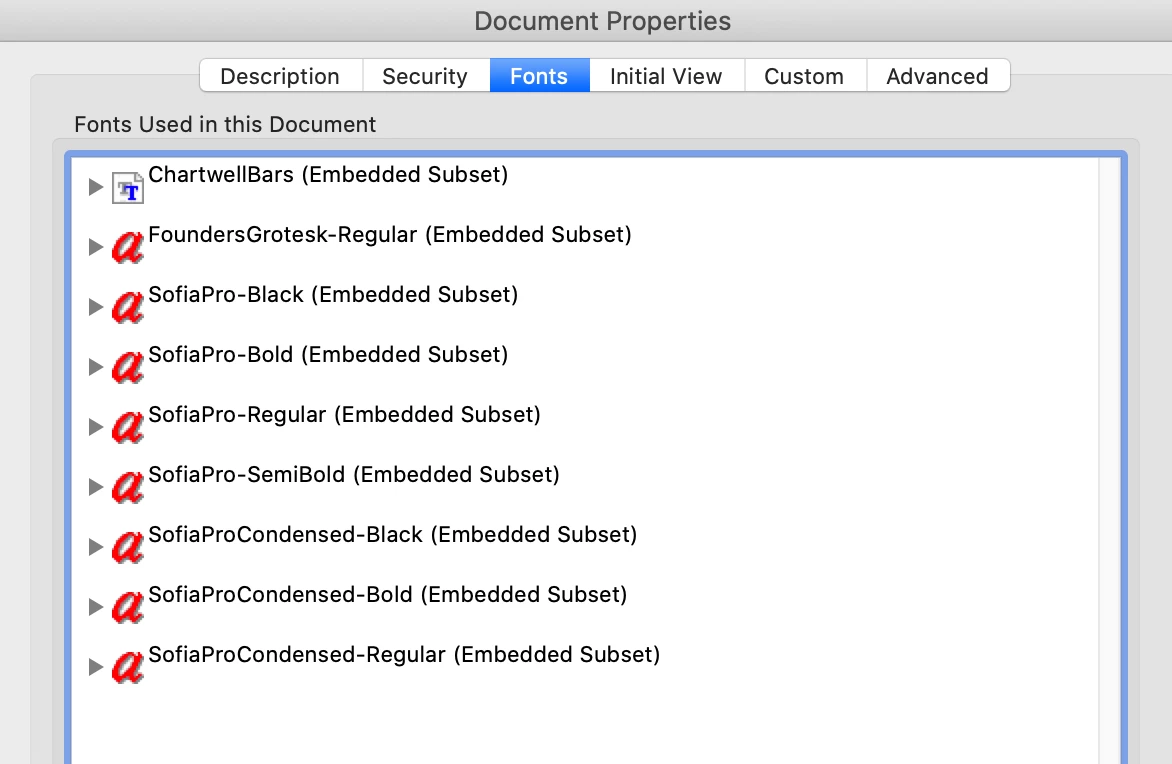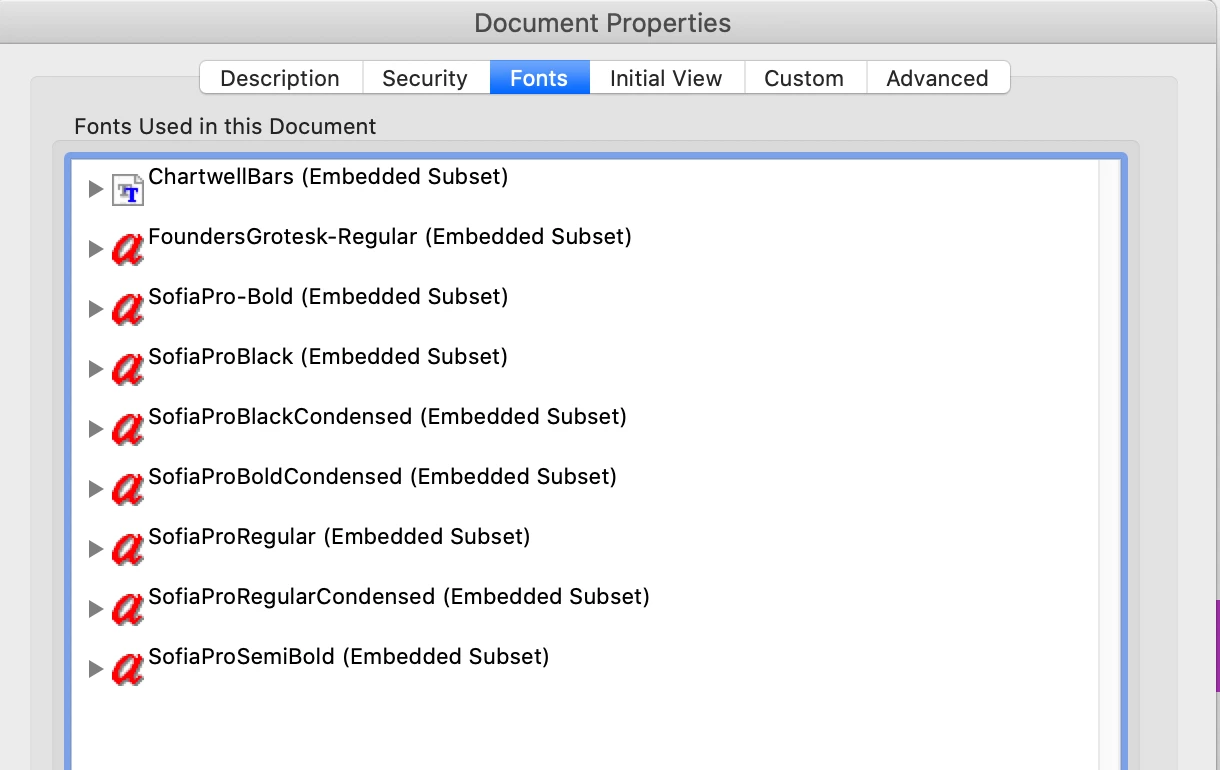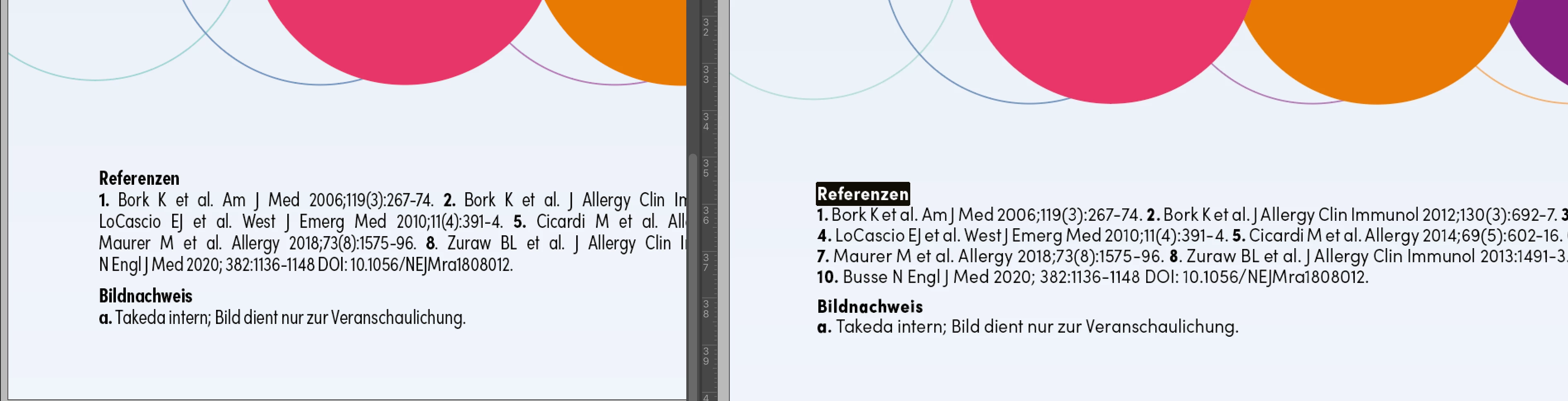
Same fonts are displayed differently on different computers
I have the problem that some font styles of Sofi Pro Condensed look different when I open an InDesign Document on different computers. (see Screenshot: same document, opend on different computers, no changes meanwhile) How is this possible – and any idea how I can fix this?
I'm having the same issue with Sofia Pro Condensed, it's suddenly started displaying more squeezed. Analyzing two sets of PDFs - one displaying the font correct and one incorrectly - shows a slight change in the font name (see grabs, note the addition of a hyphen), but both are synced to the same font available from Adobe Fonts. Very strange. Thanks, Adam